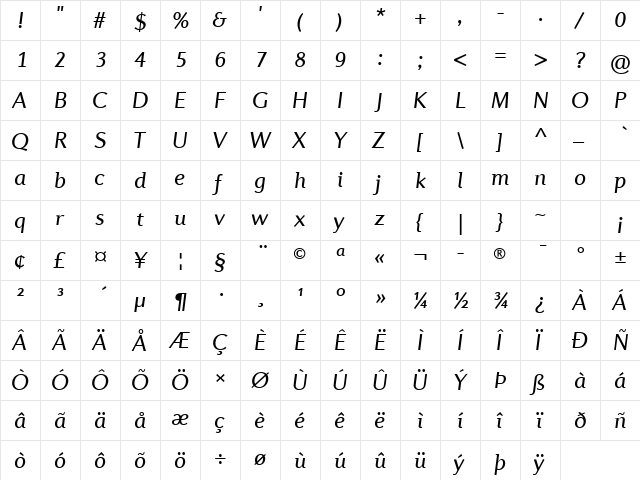
Diverda Sans Com Italic Font Preview
Diverda Sans Com Italic
Diverda Sans Com Italic Font Details
| Foundry | Linotype GmbH |
| Designer | Daniel Lanz |
Design Context for Diverda Sans Com Typeface
Diverda Sans Com offers clean, dependable letterforms without strong stylistic allegiance, making it a practical choice for designers who need flexibility. The dynamic lean of this cut emphasises speed and emphasis in any layout.
Pro Tip: Try Diverda Sans Com for annotation and caption copy alongside an upright companion — the contrast in angle creates a dynamic but ordered typographic system.